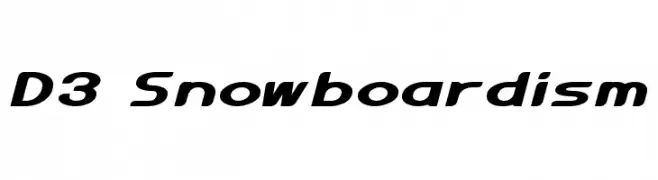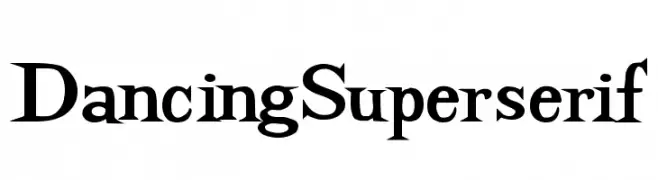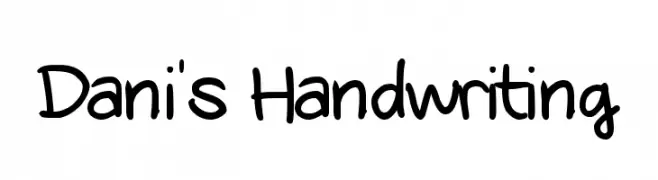
A bold, dynamic font with a modern, slanted style.
A versatile set of clear and simple pictograms for public and transportation use.
Whimsical font with human figures and symbolic head icons.
A bold, high-contrast serif font with a playful and elegant design.
A playful and casual handwritten font with smooth, rounded letterforms.